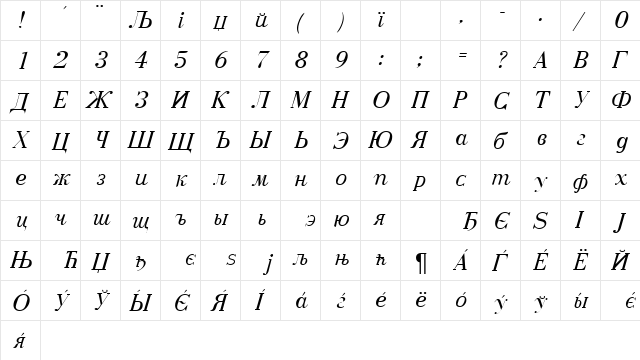
BodoniCyrillic RegularItalic
Design Context for BodoniCyrillic Typeface
BodoniCyrillic is a composed and adaptable typeface that performs quietly and consistently across a wide range of design contexts. The dynamic lean of this cut emphasises speed and emphasis in any layout.
Pro Tip: Use BodoniCyrillic for emphasis, pull quotes, and subheadings where its slanted energy can add rhythm to the layout.